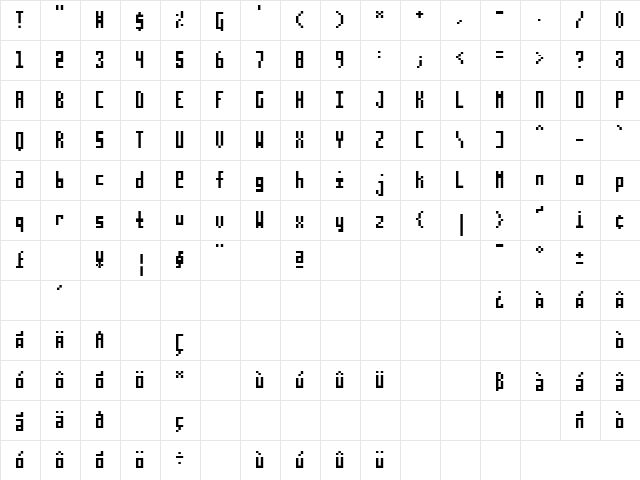
TPF Ploxx Regular
Design Context for TPF Ploxx Typeface
TPF Ploxx takes a measured approach to typography — its balanced proportions and neutral character make it a reliable workhorse for both digital and print work.